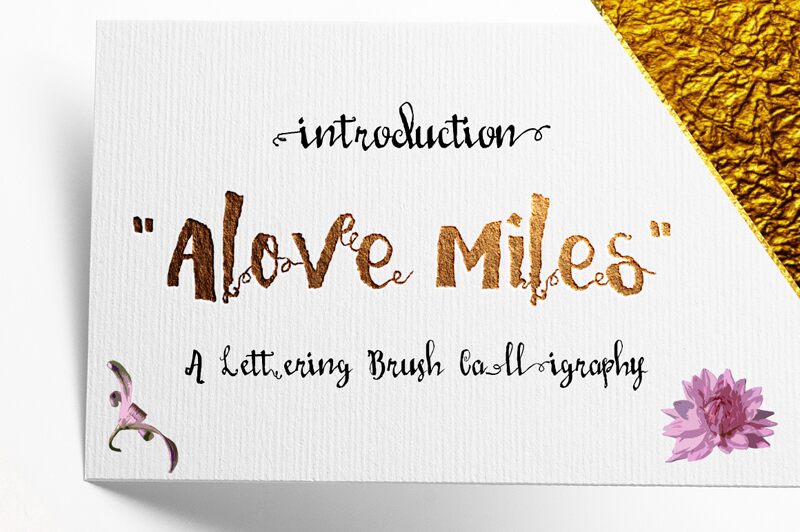
LoveMile 01 Script font, from the Love Mile 01 family, exudes a playful charm with its curly design. This font captivates with its whimsical loops and flowing connections, creating a sense of movement and grace. The expressive strokes lend an inviting quality that draws the eye and adds character to any composition.
Perfect for romantic invitations, trendy branding, or vibrant social media graphics, LoveMile 01 Script shines where creativity is key. Its distinctive flair enhances artistic projects while maintaining readability, making it both stylish and functional. Embrace this delightful font to convey warmth and personality in your design endeavors.